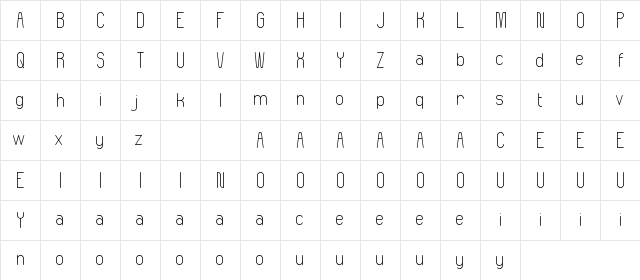
Neitherly Demo Light Regular
Design Context for Neitherly Demo Light Typeface
Neitherly Demo Light is a composed and adaptable typeface that performs quietly and consistently across a wide range of design contexts. The delicate stroke weight brings airiness and refinement to layouts.